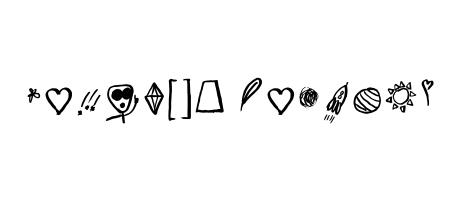
Betwind
Betwind Regular is a playful, hand-drawn font. Its quirky charm is evident in the uneven lines and slightly wobbly shapes. The characters are simple yet expressive, hinting at a childlike innocence or a spontaneous, artistic flair. The design lends itself to informal projects needing a lighthearted and whimsical touch.